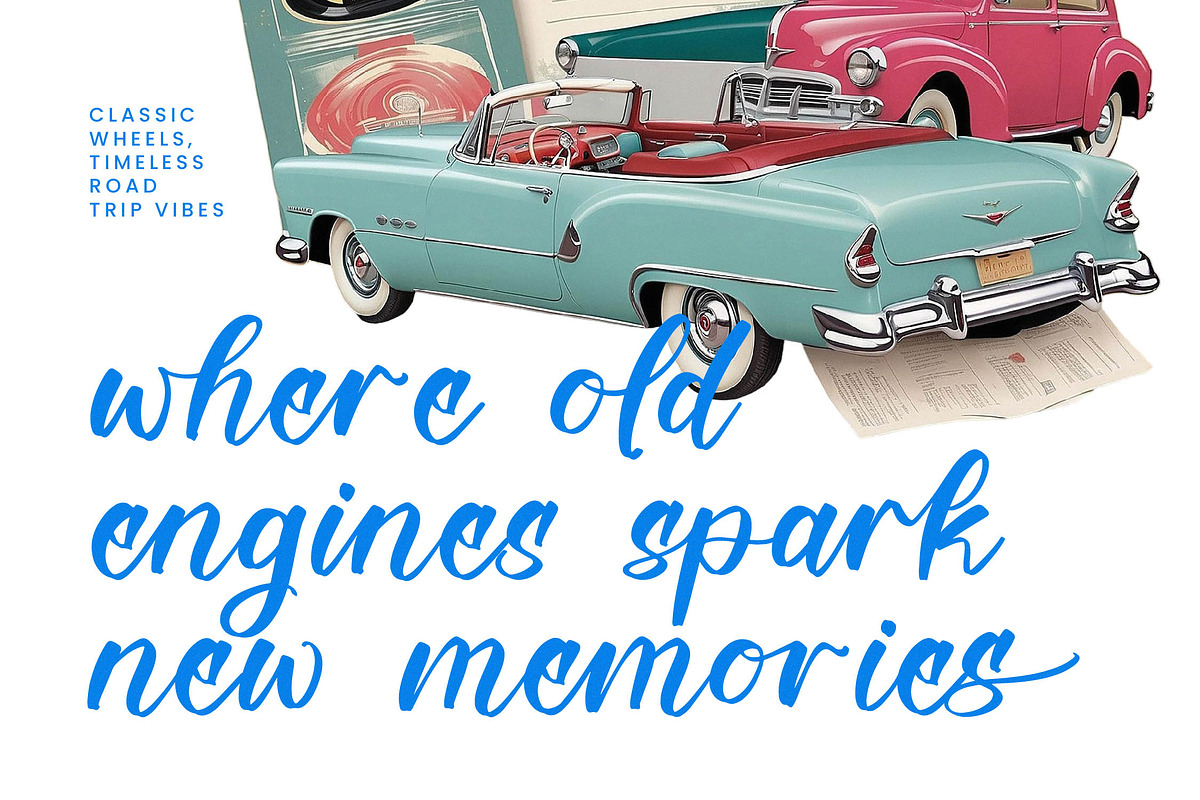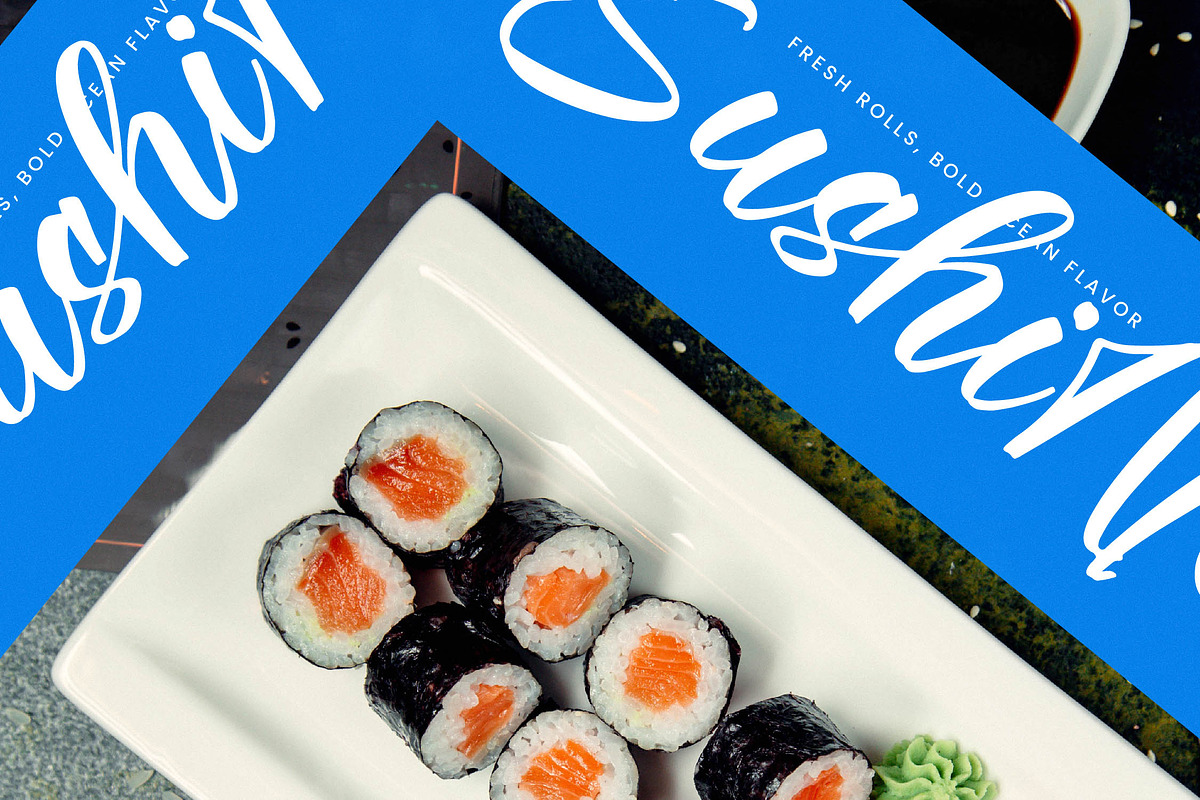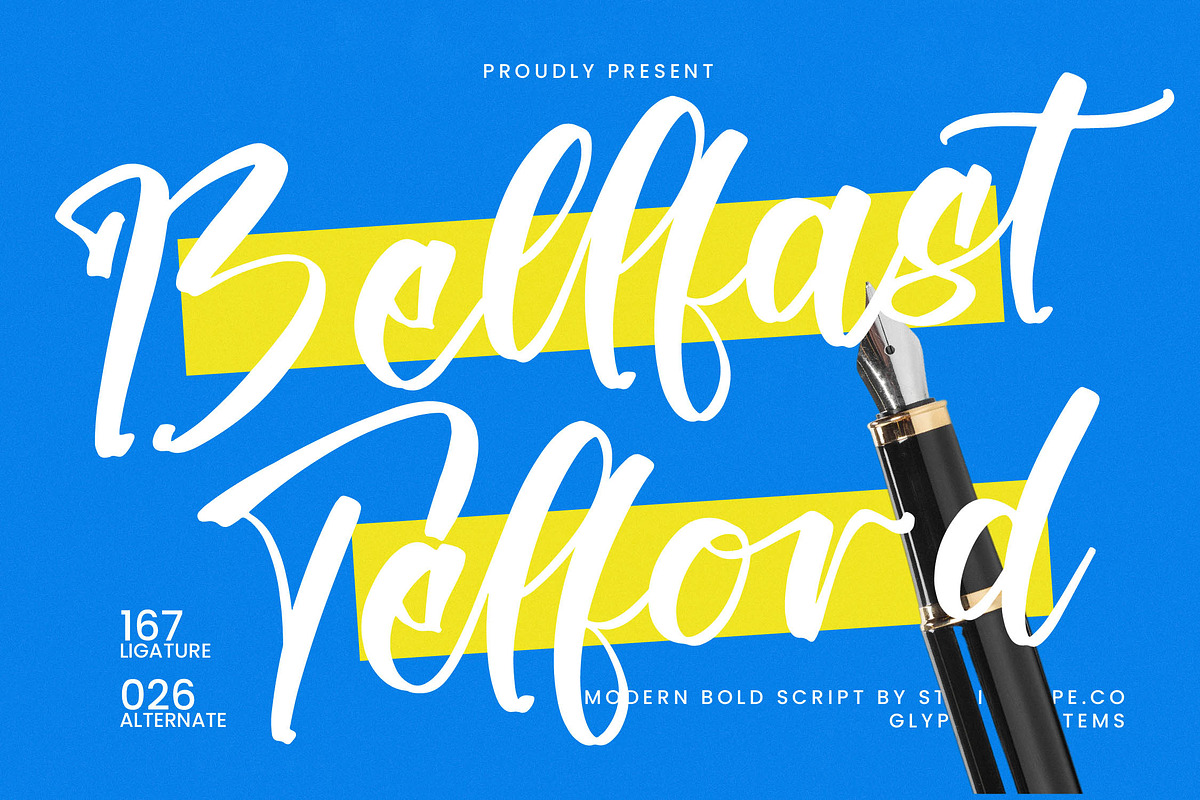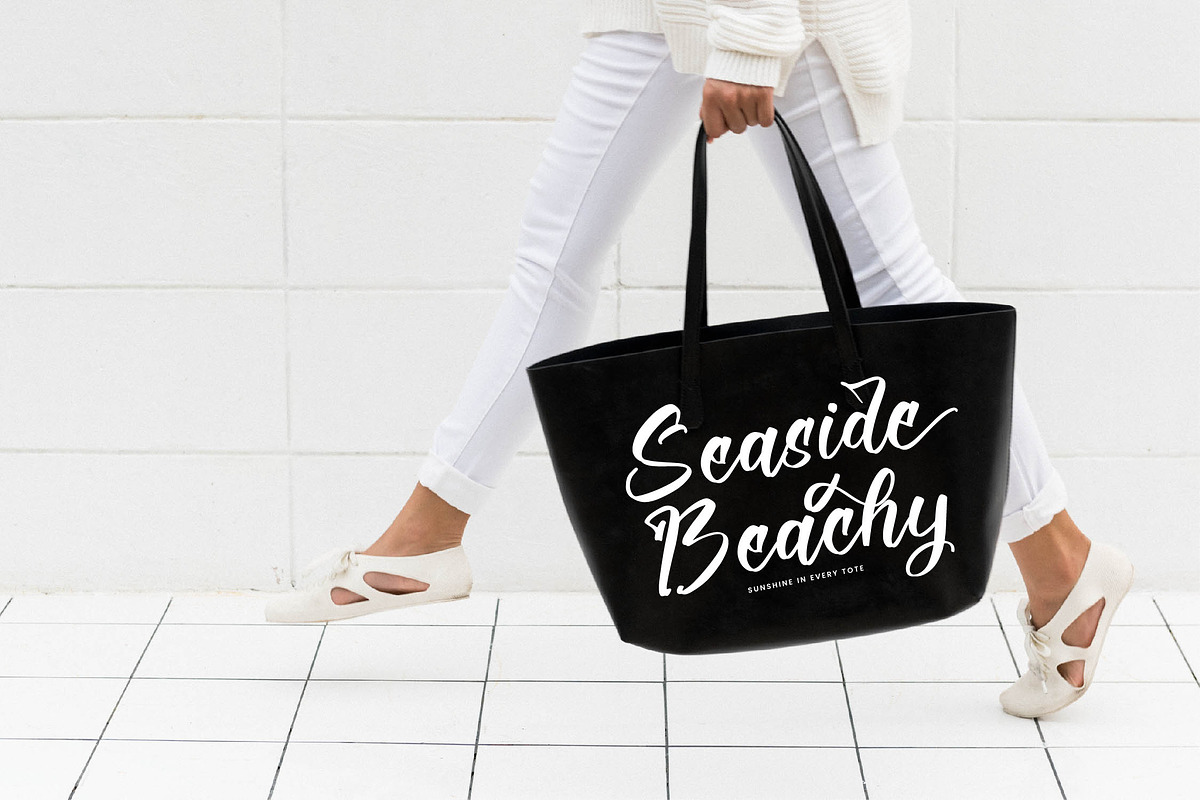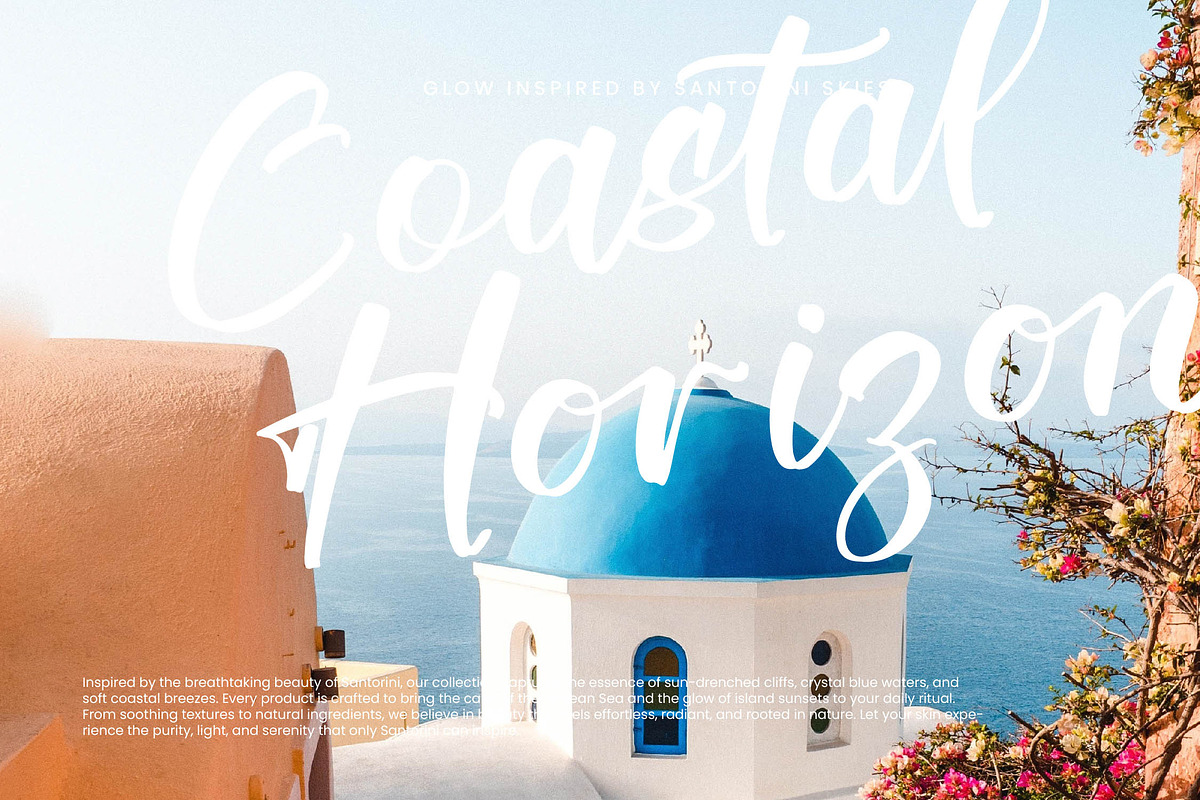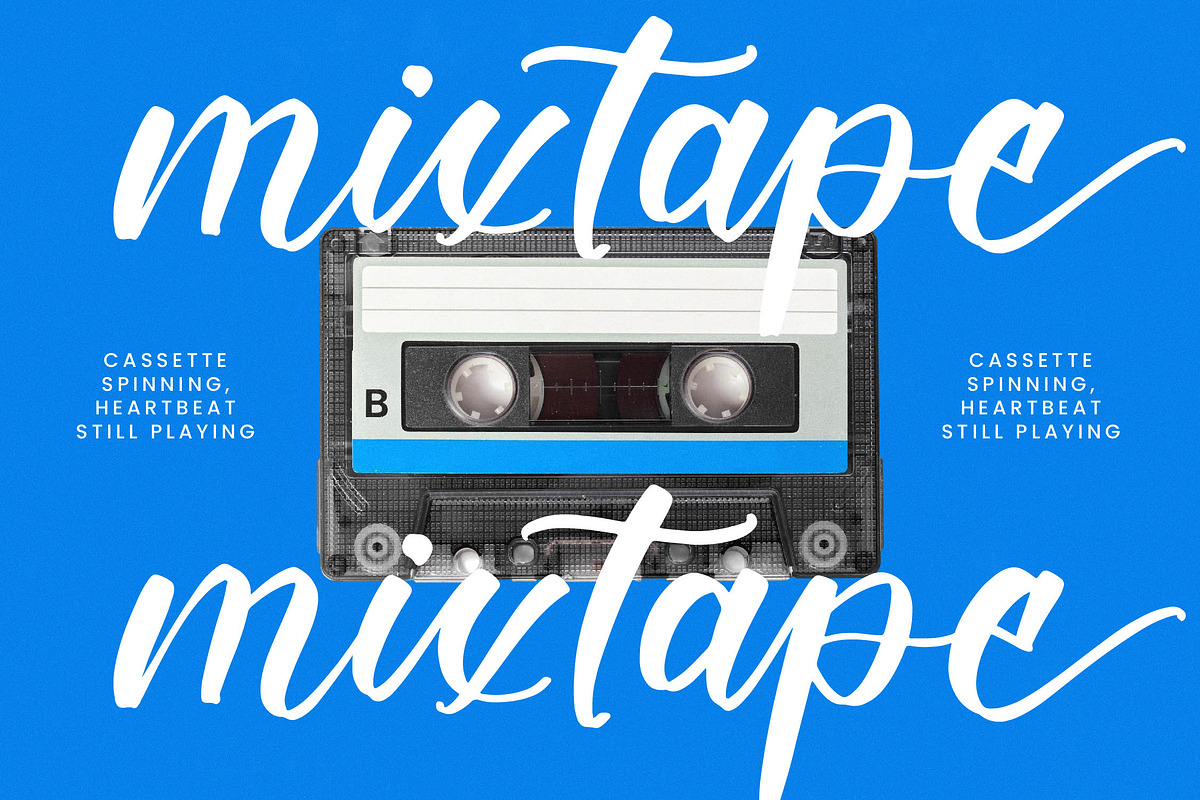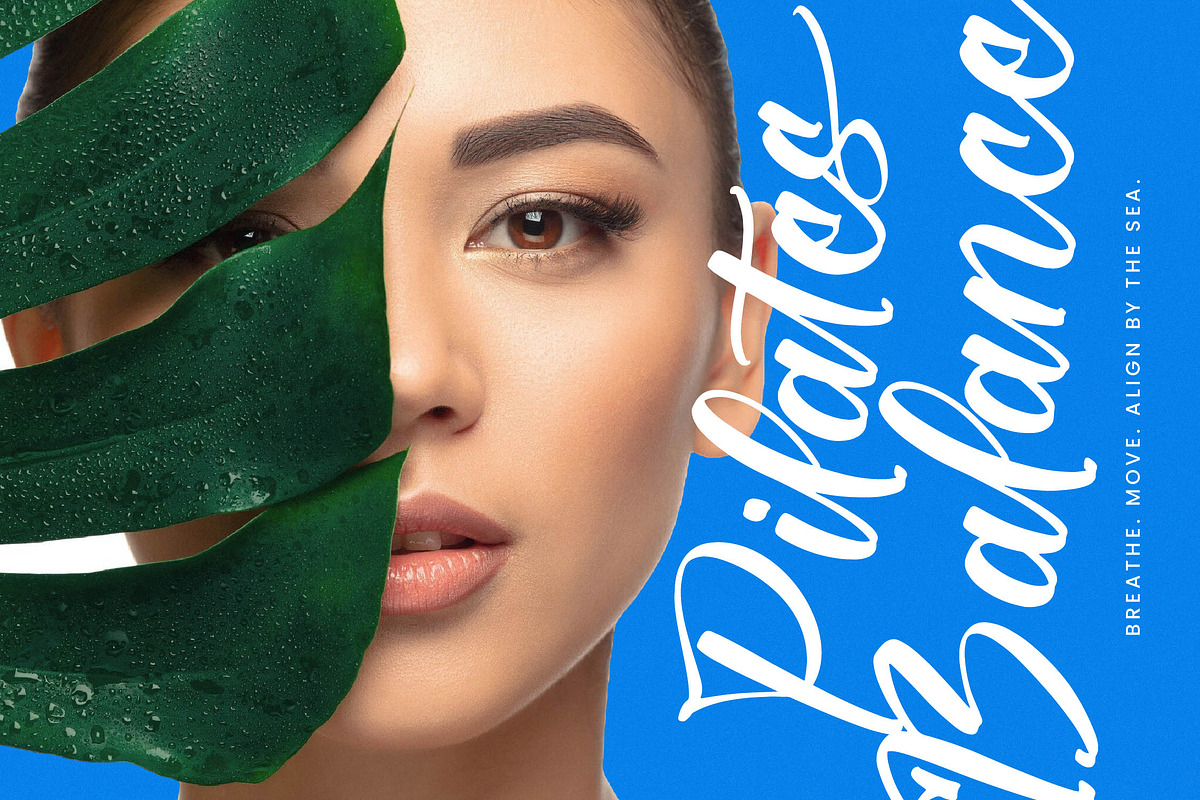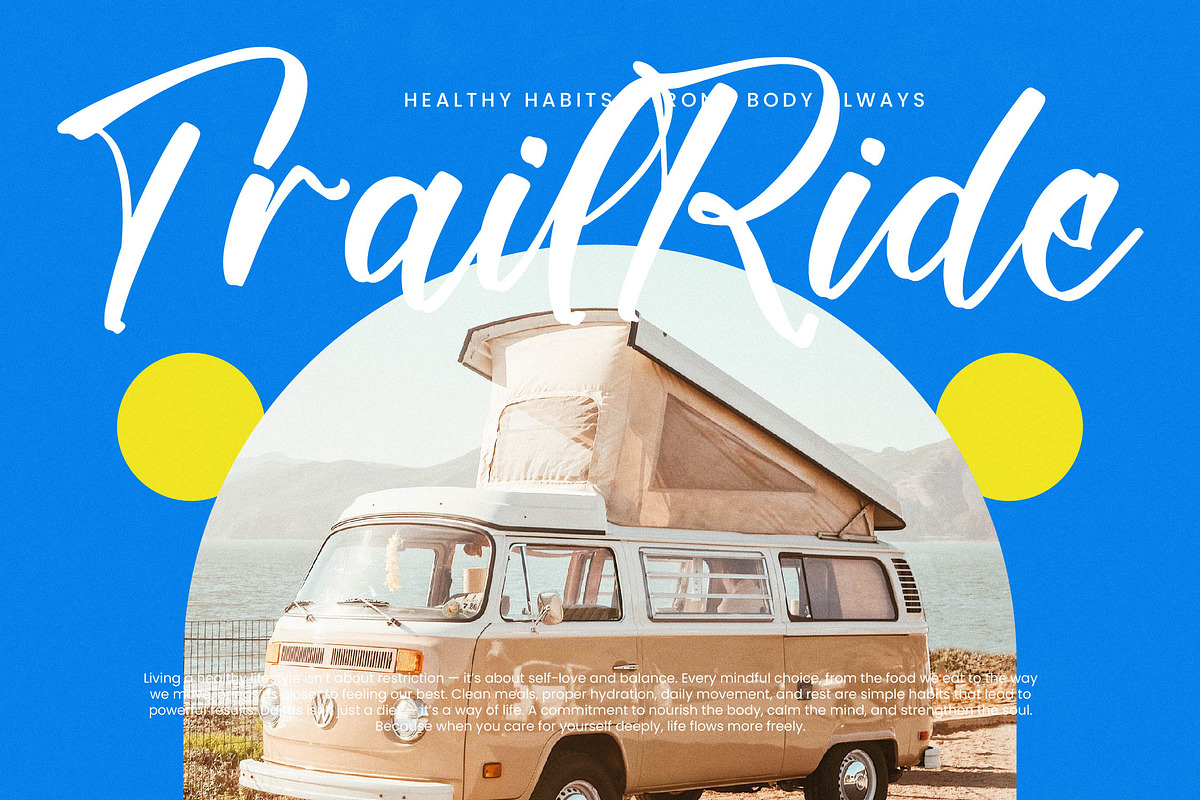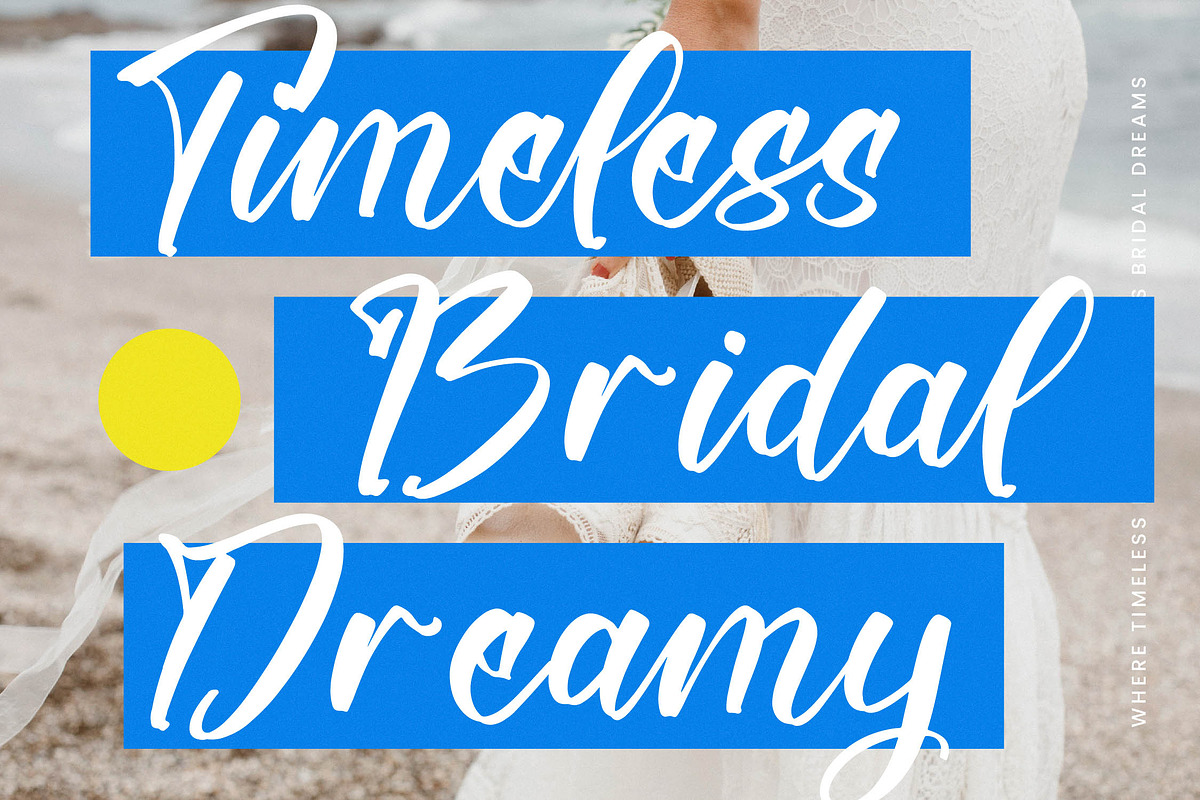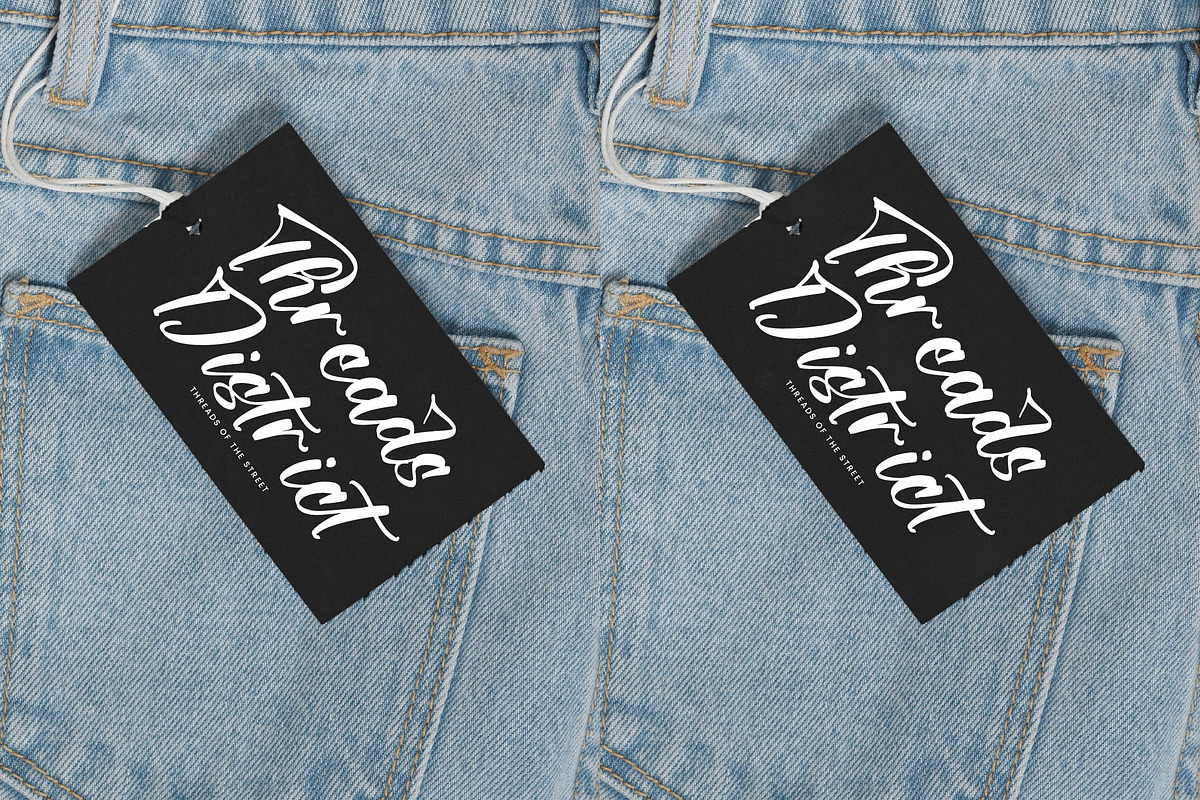
Bellfast Telford Modern Bold Script
Bellfast Telford - Modern Bold Script , from Stylishtype.Co , Suitable for any projects such as: logos, branding projects, homeware designs, product packaging, mugs, quotes, posters, shopping bags, t-shirts, book covers, name card, invitation cards, greeting cards, label, photography, watermark, special events, and all your other luxury and beautiful projects that need a Luxury Script taste.
- 167 Ligature 026 Alternates & Swashes